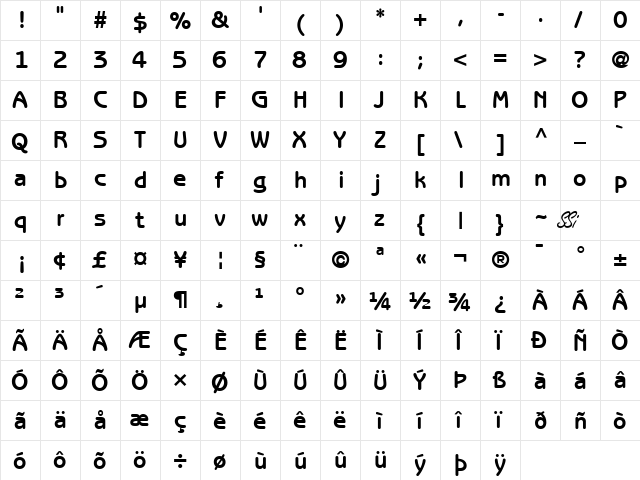
Express Deco Gothic SSi Bold
Design Context for Express Deco Gothic SSi Typeface
Express Deco Gothic SSi takes a clean, functional approach — its unadorned letterforms prioritise legibility and work reliably across screen and print environments. The heavy weight commands attention and anchors typographic hierarchies.
Well-suited to navigation labels, product packaging, and anywhere legibility at scale is essential.
Font Pairing: Use Express Deco Gothic SSi for headlines alongside a lighter-weight sans or serif for body copy to establish clear visual hierarchy.
Pro Tip: Use Express Deco Gothic SSi for UI labels, navigation, and short-form body copy where clean legibility is the priority.